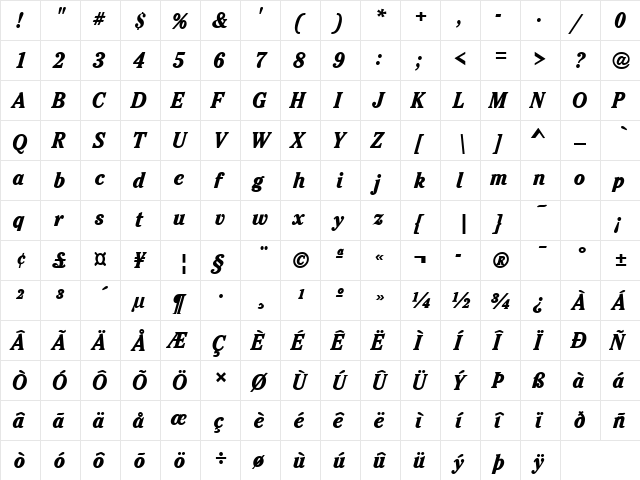
CheltenhamCondLH Bold Italic Font Preview
Design Context for CheltenhamCondLH Typeface
CheltenhamCondLH takes a measured approach to typography — its balanced proportions and neutral character make it a reliable workhorse for both digital and print work. Its italic angle brings a sense of urgency and motion to the letterforms. The heavy weight commands attention and anchors typographic hierarchies. The condensed width makes it efficient for tight spaces without sacrificing legibility.
Pro Tip: Try CheltenhamCondLH for annotation and caption copy alongside an upright companion — the contrast in angle creates a dynamic but ordered typographic system.